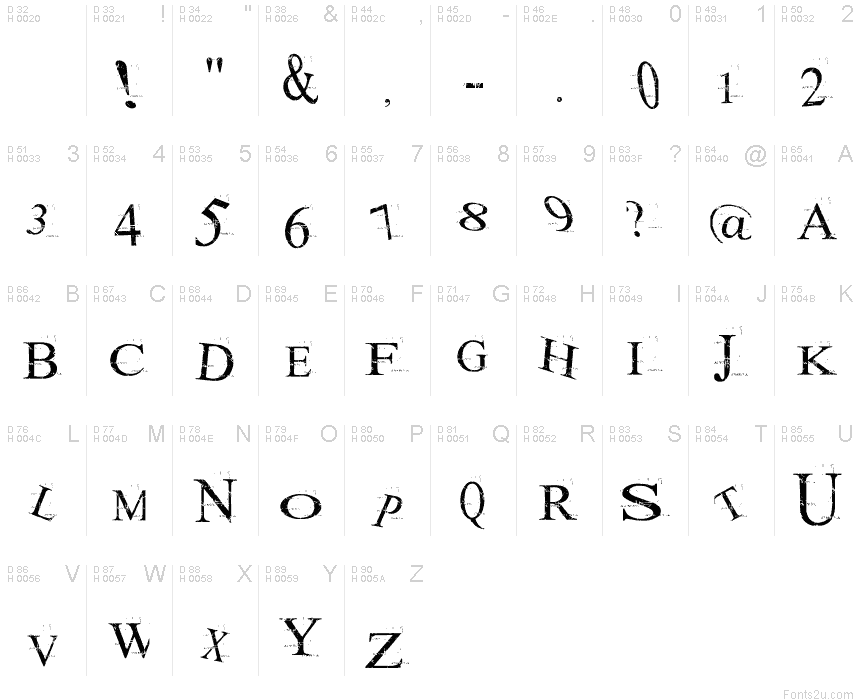
akoom
Akoom font by Veredgf is a free distorted serif font that looks like it’s been eroded by time and static. Tall, elegant letterforms are cracked, scratched, and speckled with gritty noise, giving every word a haunted, worn-out texture. The result feels both literary and unsettling, as if a classic book title has been dragged through a storm and left to dry.
Using Akoom, you can give horror book covers, eerie movie posters, occult zines, dark album art, mystery game titles, and experimental flyers a tense, cinematic mood with almost no extra effects. This free font works best at large sizes where its grainy details can breathe; pair Akoom with a clean, understated sans serif for body text to keep layouts readable and dramatic.